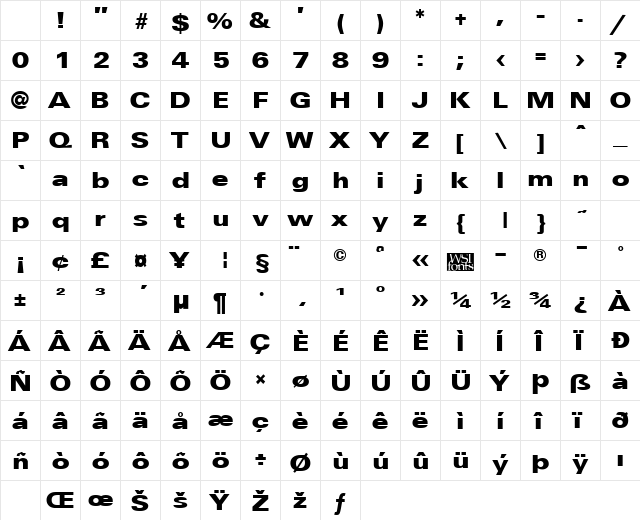
UnimpressedBlack Regular
Design Context for UnimpressedBlack
UnimpressedBlack is a composed and adaptable typeface that performs quietly and consistently across a wide range of design contexts.
Pro Tip: Use UnimpressedBlack in both headline and body roles to test its range before committing to a single application.